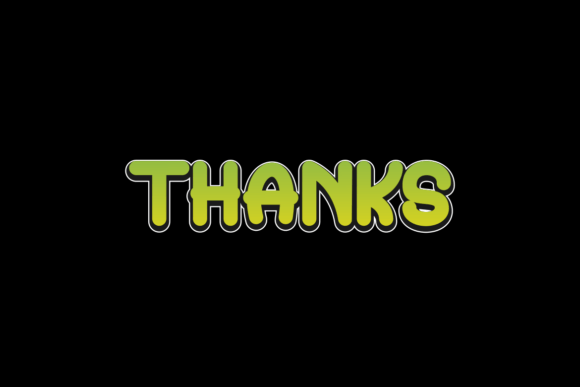
Introduction to Realhand Font
Imagine you’re brainstorming ideas for your next design project, scrolling through design resources, and stumbling upon the perfect font – one that instantly captures the essence of your creative vision. This is exactly what happens when you discover the Realhand Font, a bold and authentic display font that’s about to revolutionize your branding projects.
Whether you’re a seasoned designer or just starting out, the Realhand Font is an invaluable asset that can elevate your designs to the next level. Its versatility and high-quality design make it perfect for a wide range of creative projects, from logo designs and t-shirt printing to esports branding and beyond.
With its transparent background and free download availability, the Realhand Font is an accessible design resource that’s waiting to be unleashed in your next project. Get ready to unleash your creativity and take your designs to new heights with this incredible font.
Key Features of Realhand Font
- Unique and elegant design, perfect for creative projects and design resources.
- High-quality font with a transparent background, ideal for use in various design applications.
- Perfect for use in logos, branding materials, and other design elements where a sophisticated and elegant look is required.
Honest Review: Realhand Font
I recently stumbled upon the Realhand Font, a versatile design resource that can elevate any creative project. With a free download available, I was excited to give it a try.
The Realhand Font has a unique, high-quality aesthetic that sets it apart from other fonts. I particularly appreciate the transparent background, which makes it easy to integrate into any design.
- ✨ Unique and stylish design that adds a touch of sophistication to any project
- ✨ High-quality vector files for crisp and clear printing
- ✨ Transparent background for easy integration into designs
- ⚠️ Limited font styles and variations, which may not be suitable for projects requiring a wide range of font options
- ⚠️ Some users may find the font too bold or overwhelming for certain design applications
Overall, I’m impressed with the Realhand Font’s potential to elevate creative projects. While it may have some limitations, its unique design and high-quality vector files make it a valuable addition to any design resource library.
The Realhand Font is ideal for a variety of creative projects, including logos, posters, social media graphics, and business cards. Its high quality and transparent background make it a versatile design resource for any project.
Alternatives to Realhand Font
Great Vibes Font is a beautiful, elegant script font that is perfect for creative projects, such as wedding invitations, greeting cards, and signage. It features a high-quality design with a transparent background, making it ideal for designers who want a sophisticated look. When to use: For elegant, high-end designs that require a touch of sophistication.
Great Vibes Font compares to Realhand Font in its elegance and sophistication, but it has a more refined and delicate feel. It’s a great alternative for designers who want a similar look without the bold, handwritten feel of Realhand Font.